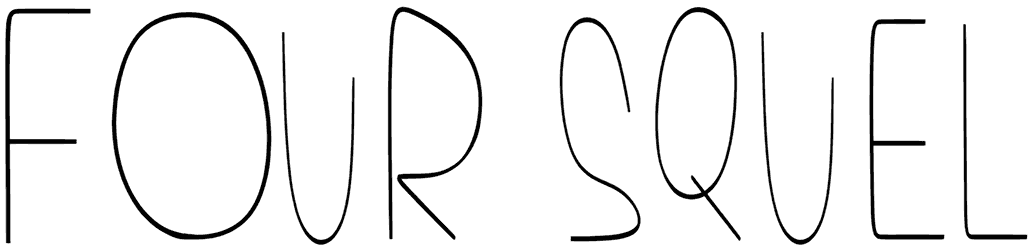
Four Squel Font
Four Squel is a minimalist script font that provides aesthetic without losing its solidity with the help of accurate curves, so it carries a sense of softness, delicacy, precision, harmony, and professionalism. It would…
Four Squel is a minimalist script font that provides aesthetic without losing its solidity with the help of accurate curves, so it carries a sense of softness, delicacy, precision, harmony, and professionalism. It would look really perfect on every kind of creative content including posters, logos, magazines, stationaries, branding, and business cards that require a handwritten touch.